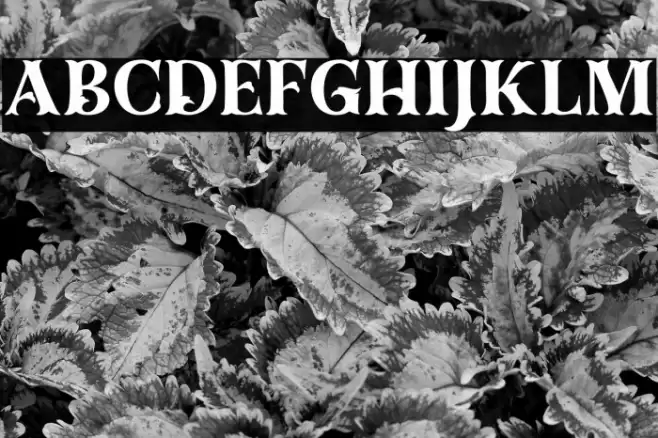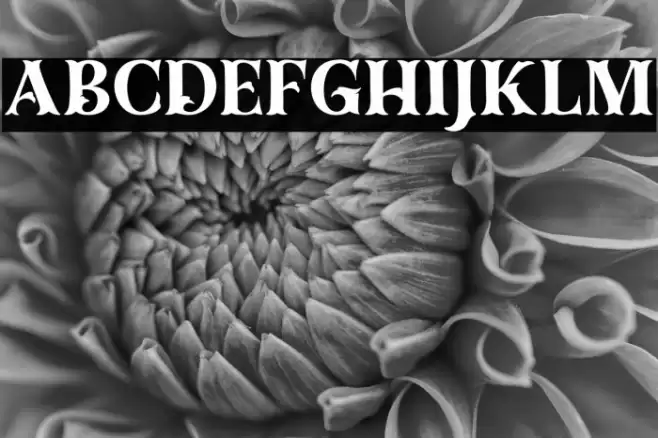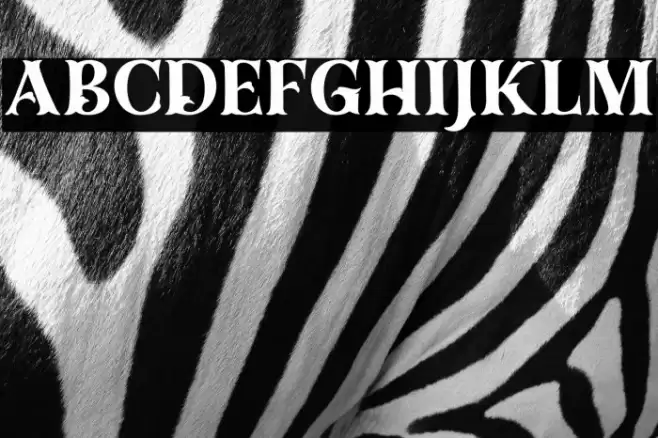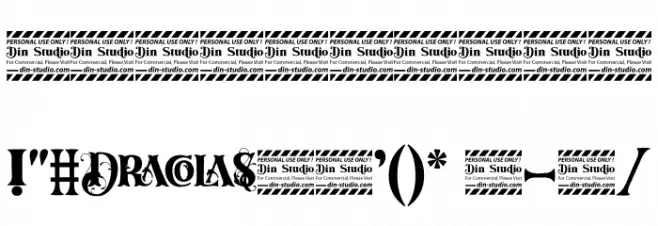
Dracolas Personal Use Font
Dracolas Personal Use Description
This font features a bold and dramatic style with sharp, angular serifs and a gothic influence. The uppercase letters have a strong presence, with thick strokes and pointed edges that convey a sense of power and mystery. The lowercase letters maintain this boldness, ensuring consistency across the typeface. The numbers and special characters are equally striking, with unique flourishes that add to the font's distinctive appearance. This typeface is ideal for projects that require a touch of drama and elegance, such as book covers, posters, or branding for luxury products.
A bold, gothic-inspired font with sharp serifs and dramatic flair from Uncategorized fonts.
- Font: Dracolas Personal Use
- Proposed Projects: Ideal for book covers, posters, branding for luxury products, and any project needing a dramatic touch.
- Overall Style: Gothic, Dramatic
Dracolas Personal Use UPPERCASE
Dracolas Personal Use LOWERCASE
Dracolas Personal Use OTHER CHARS